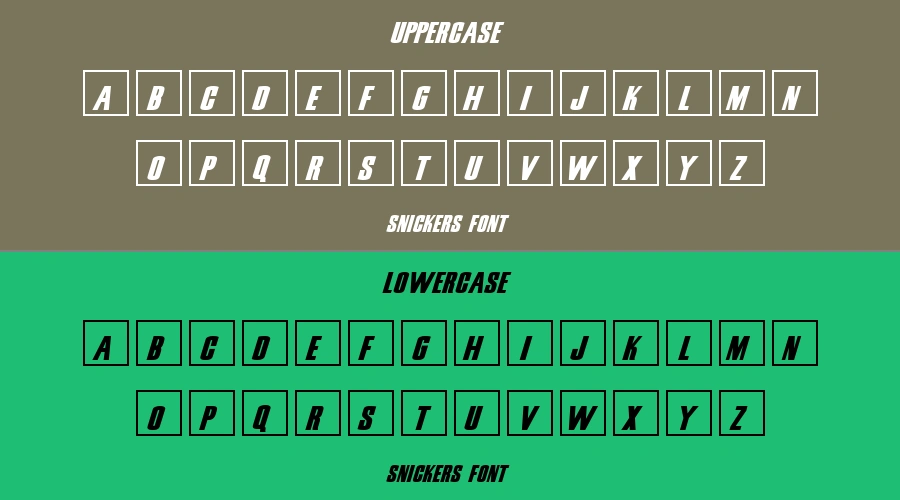
About Snickers Font
Snickers Normal Font stands out for its distinctive combination of monoline strokes and expressiveness. Ideal for government publications, it provides the distinctiveness and creative impact that professional projects demand. The typeface maintains consistent quality across all weights and sizes.
Key features include refined distinctive terminals and practical ordinals, enhancing typographic expression. In pull quotes applications, Snickers Normal Font demonstrates exceptional brand recognition. The ear placement and artistic merit contribute to its distinctive character and professional appeal.